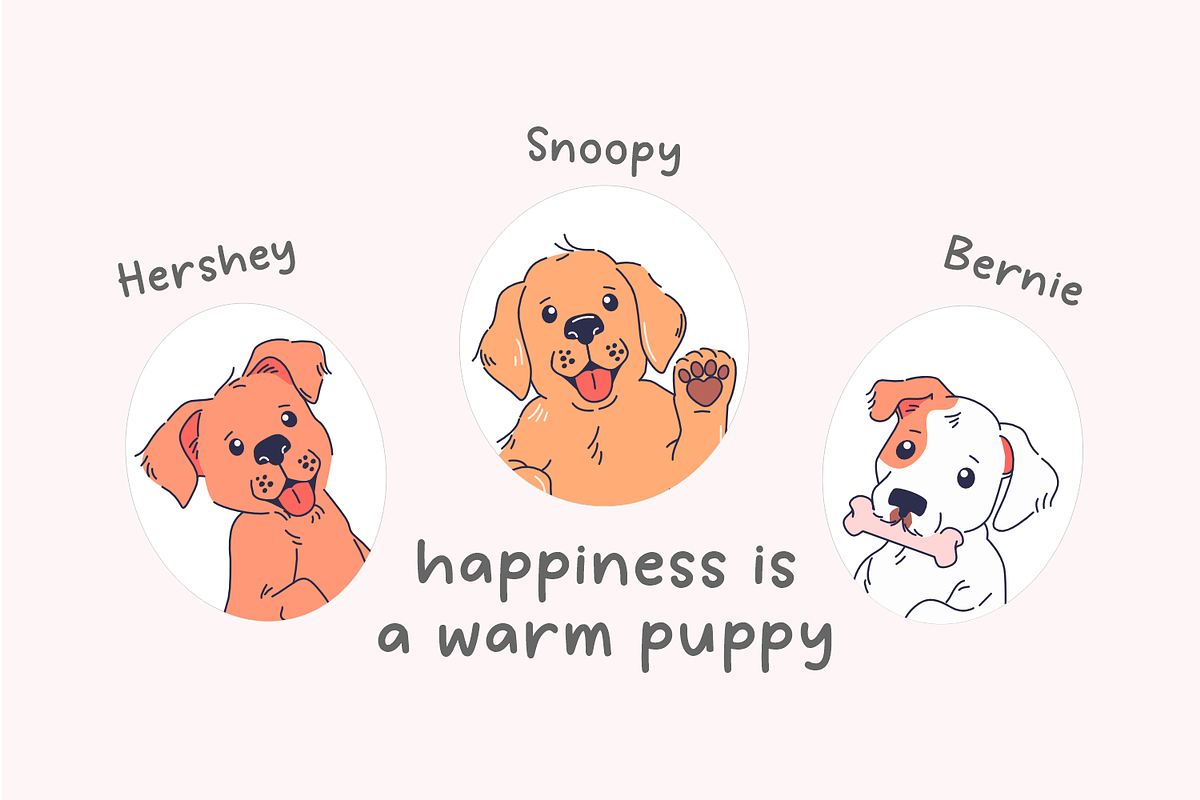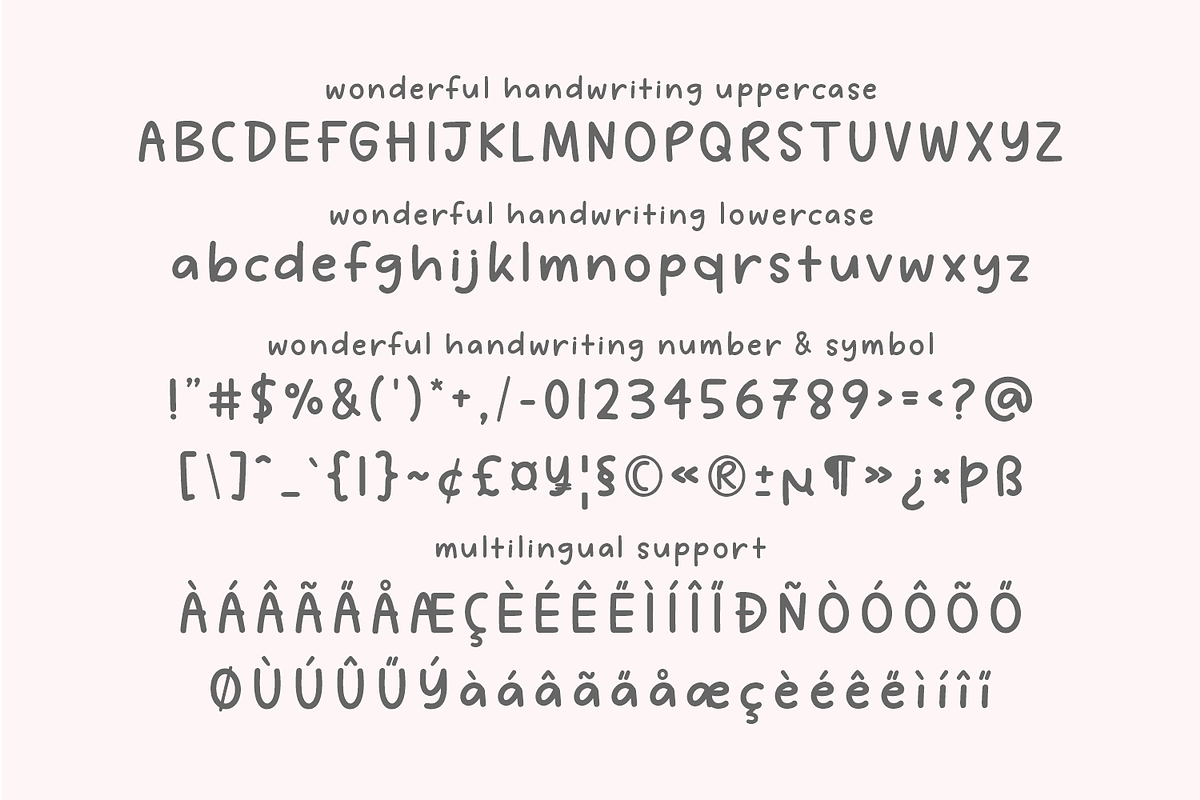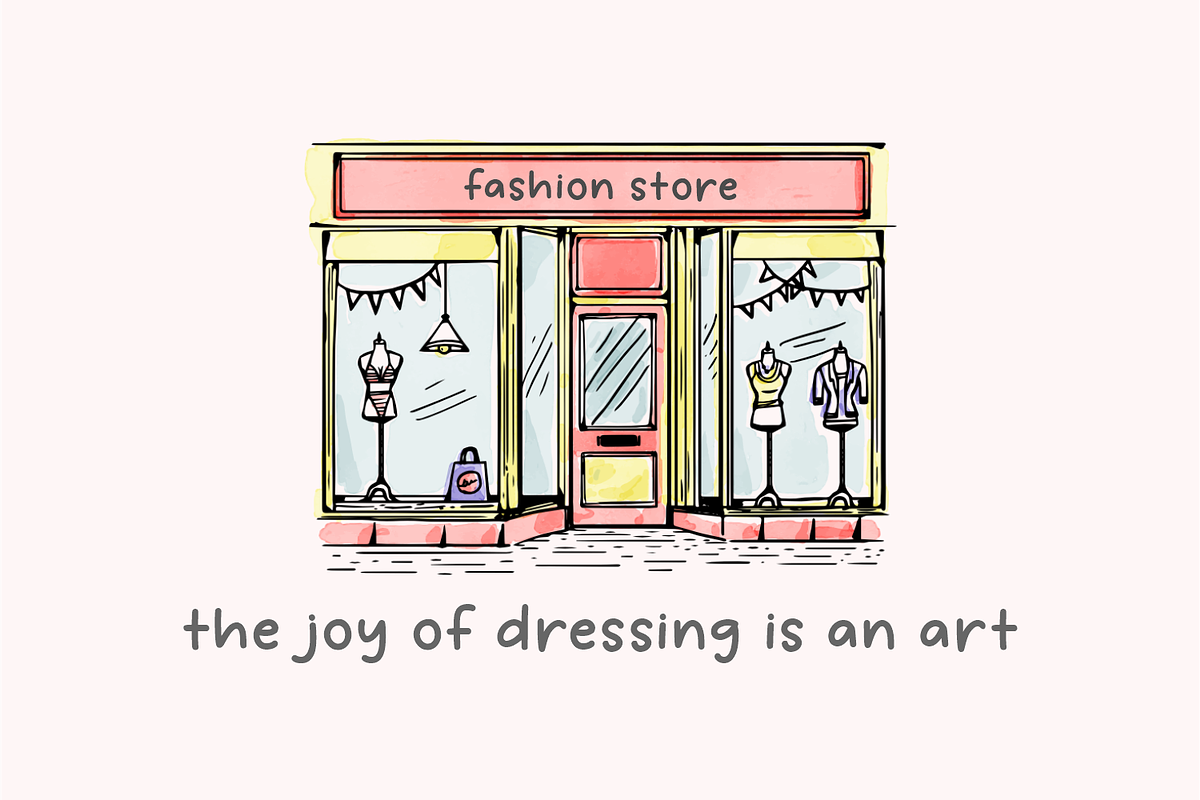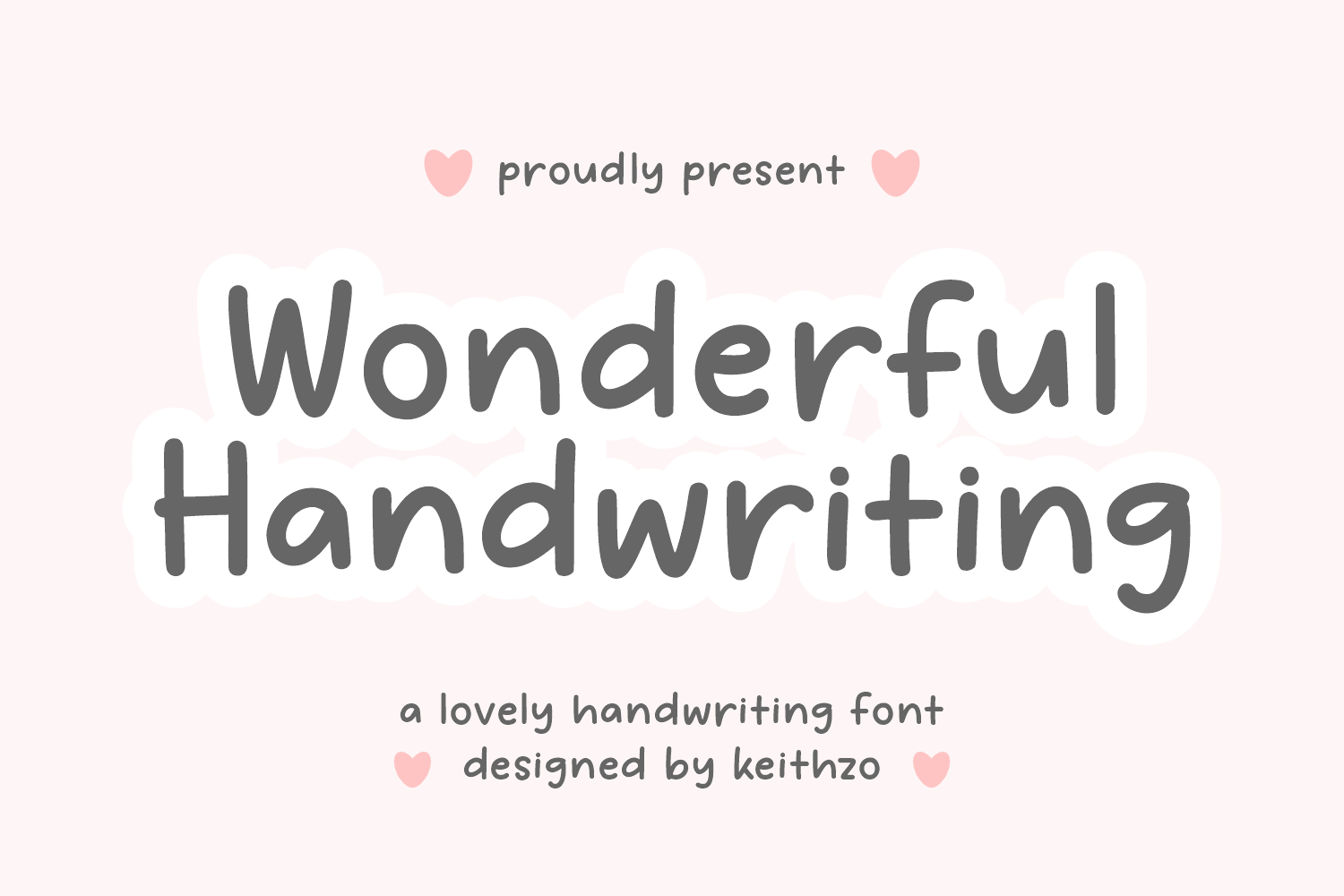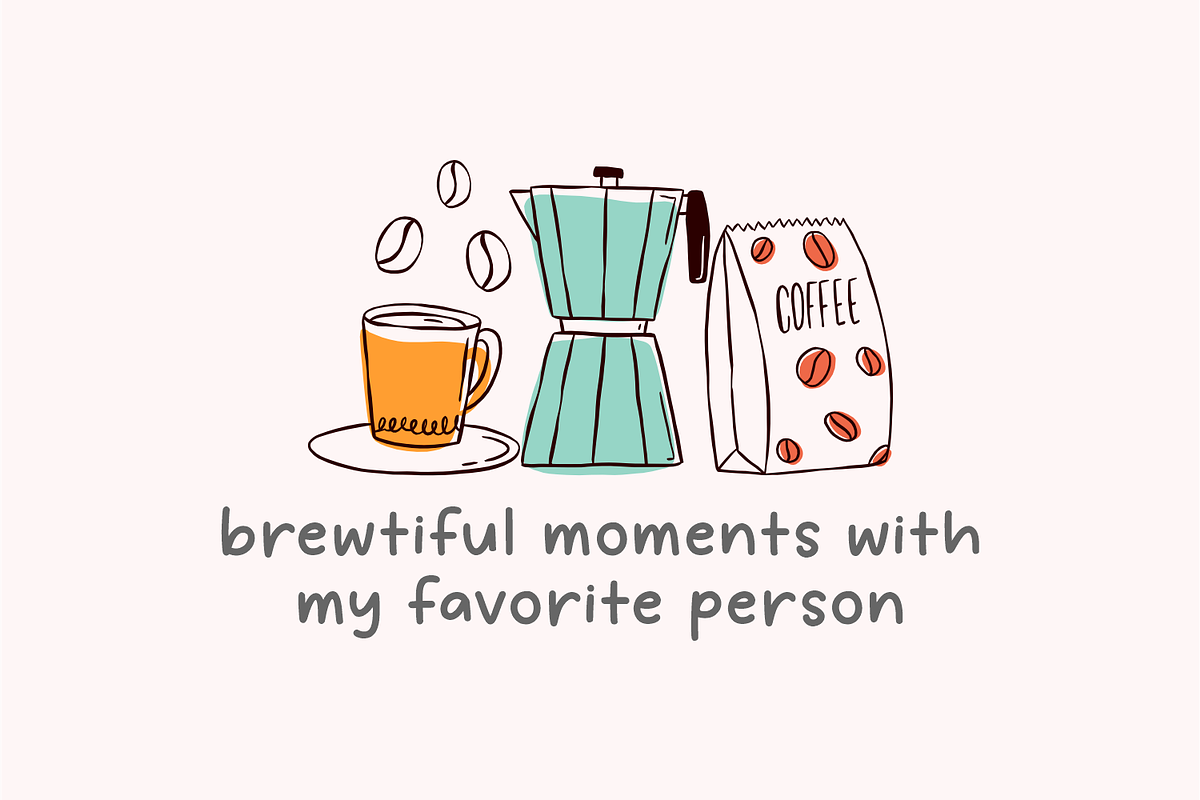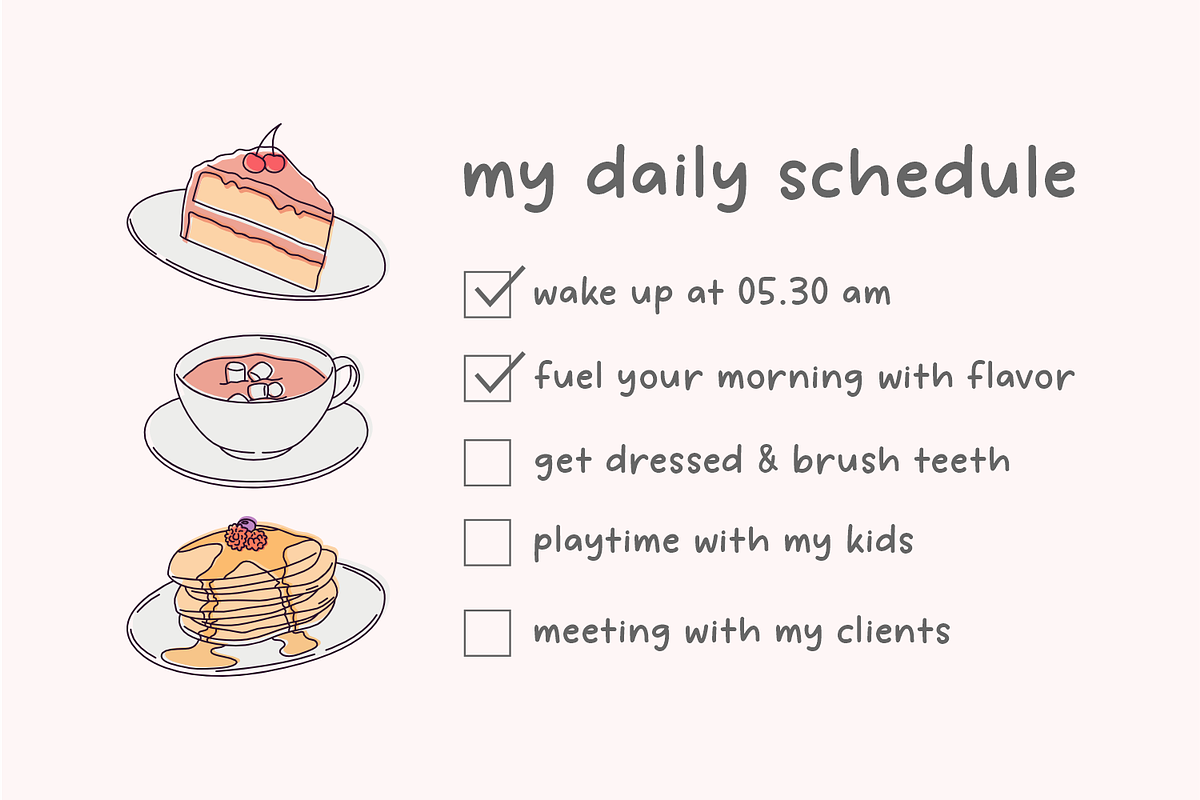
Wonderful Handwriting - Notes Font
Unleash your creative imagination with Wonderful Handwriting, a charmingly simple handwriting font that possesses the magic to transform your projects into masterpieces of design. With an individual characteristic in each stroke, this font is beautifully versatile. Let it add an artistic touch to your diary entries, extend a personal feel to your blog, or use it to craft inviting posters and heartfelt greeting cards. Equally engaging on a t-shirt or embedded in a craft project, this font exudes an authentic handwritten allure. Wonderful Handwriting truly lets you paint a world of extraordinary design.